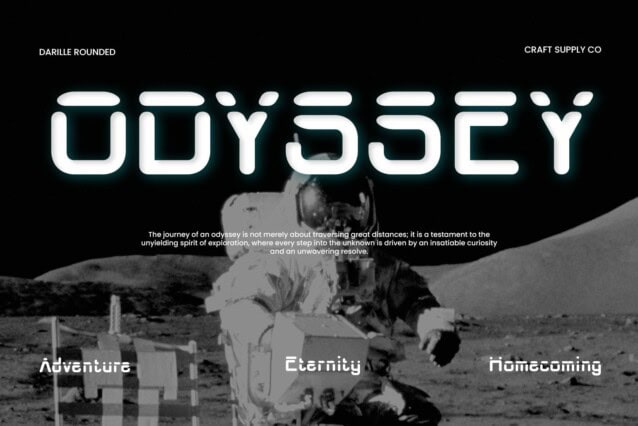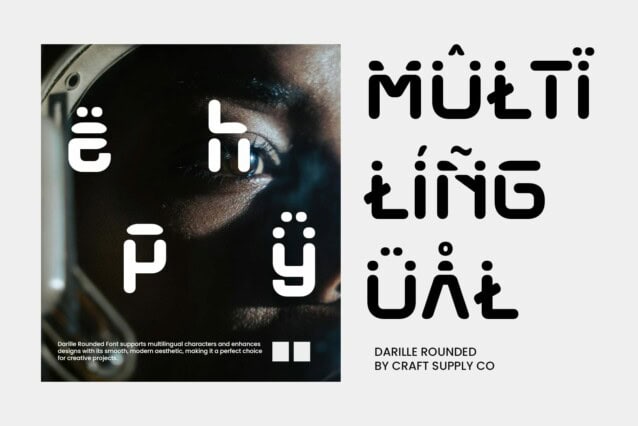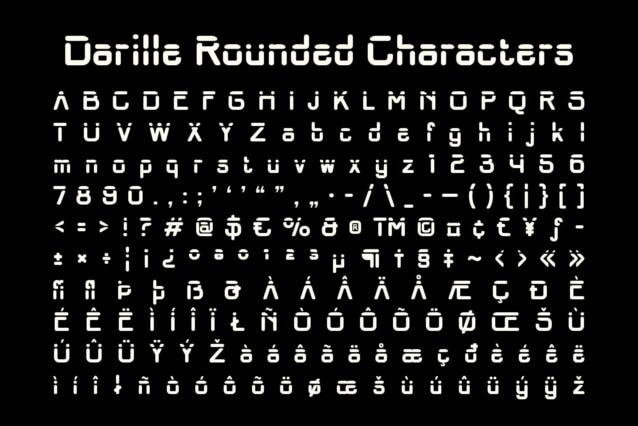
Darille Rounded Font
Darille Rounded Font is a modern sans-serif font that blends futuristic design with smooth, rounded edges. Its geometric structure ensures a balanced and highly readable appearance, while the soft curves add a welcoming and contemporary touch. This combination makes it perfect for designs that require a modern, clean, yet approachable feel.